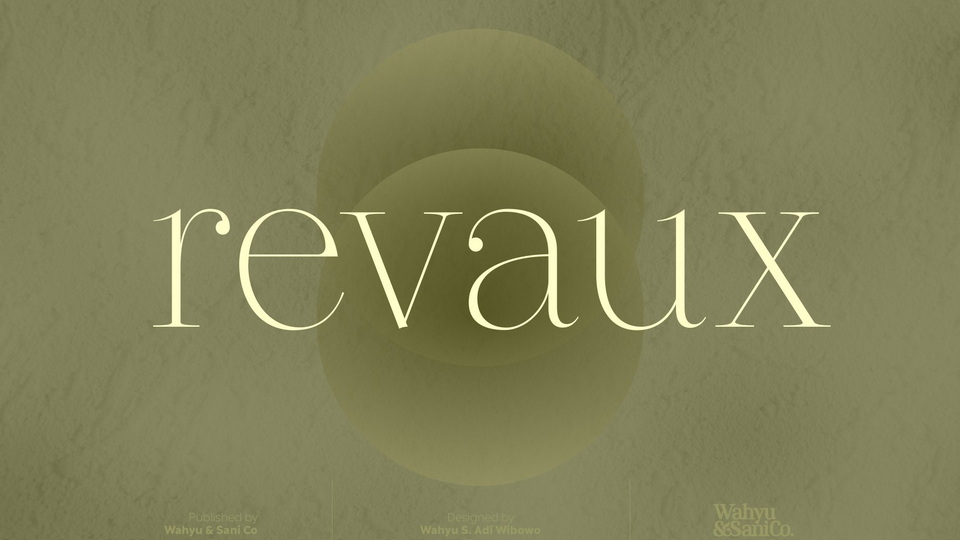
Download Revaux font, a modern and elegant display serif typeface designed with ball terminals and slightly back-slanted counters.
Designer: Wahyu and Sani Co.